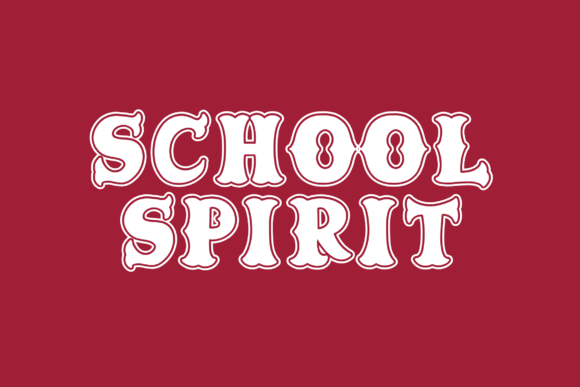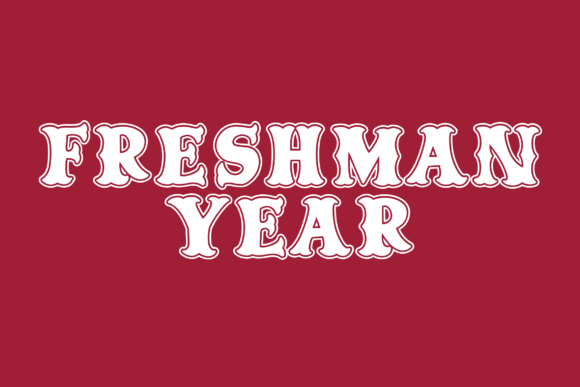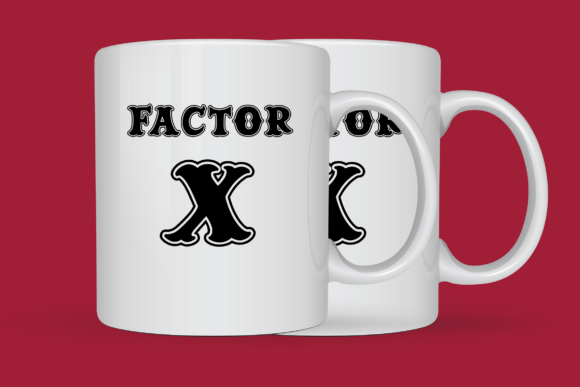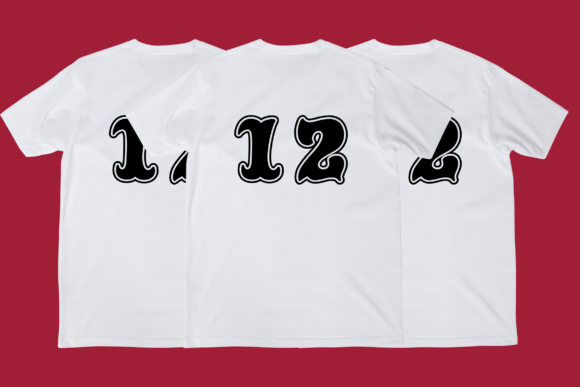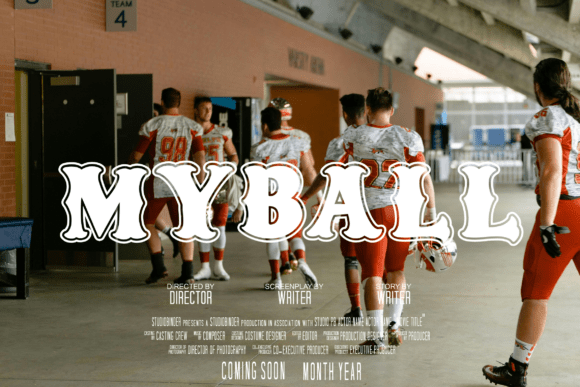
Caskford Varsity Font: A Bold and Versatile Typeface for Designers and Crafters
Are you looking for a font that combines the rugged spirit of the old west with the solid structure and weight of collegiate typography? Look no further than Caskford Varsity Font. This bold and confident display font is perfect for designers and crafters who want to create eye-catching logos, apparel, team merch, posters, labels, signage, and vintage-inspired branding.
A Unique Blend of Classic Old Western Character and Varsity Letterforms
Caskford Varsity Font blends the classic old western character with bold varsity letterforms to create a strong and confident display font. The shapes are bold and balanced, making text stay readable at any size. This font carries the rugged spirit of frontier signage while adding the solid structure and weight you expect from collegiate typography.
Caskford Varsity Font is perfect for various design projects, including:
- Logos: Create a bold and confident logo for your business or brand.
- Apparel: Design eye-catching t-shirts, hoodies, and other apparel with this font.
- Team Merch: Create team merchandise, such as jerseys, hats, and water bottles.
- Posters: Design bold and eye-catching posters for events, promotions, or advertising.
- Labels: Create labels for products, packaging, or other materials.
- Signage: Design signage for businesses, events, or other purposes.
- Vintage-inspired Branding: Create vintage-inspired branding for your business or product.
Technical Benefits
Caskford Varsity Font also offers several technical benefits, including:
- Thick letterforms that cut and print cleanly for vinyl, screen printing, stickers, and laser projects.
- Consistent and easy-to-align shapes that make layouts come together fast.
- A mix of western grit and varsity strength that makes it versatile for both retro and sporty designs.
A Strong Choice for Merchandise, Branding, and Statement Headlines
Overall, Caskford Varsity Font is a strong choice for merchandise, branding, and statement headlines. Its unique blend of classic old western character and varsity letterforms makes it a versatile font that can be used for a wide range of design projects. Whether you’re a designer or crafter, this font is sure to help you create eye-catching and effective designs.